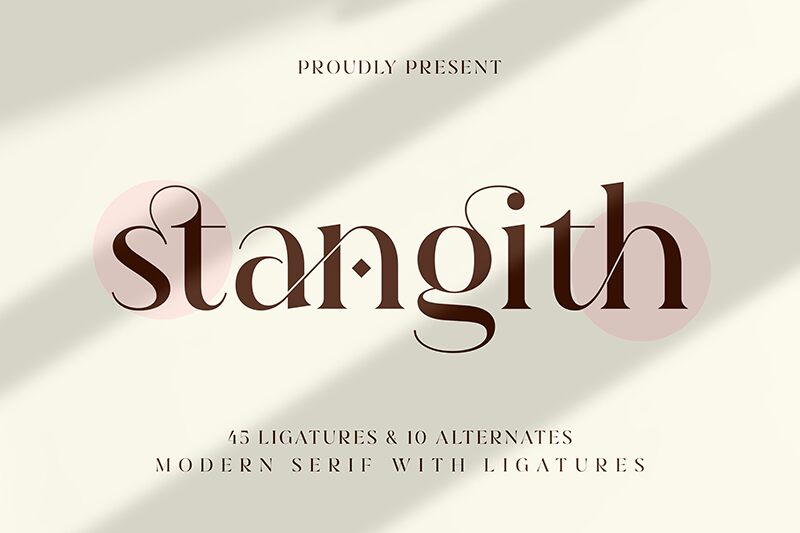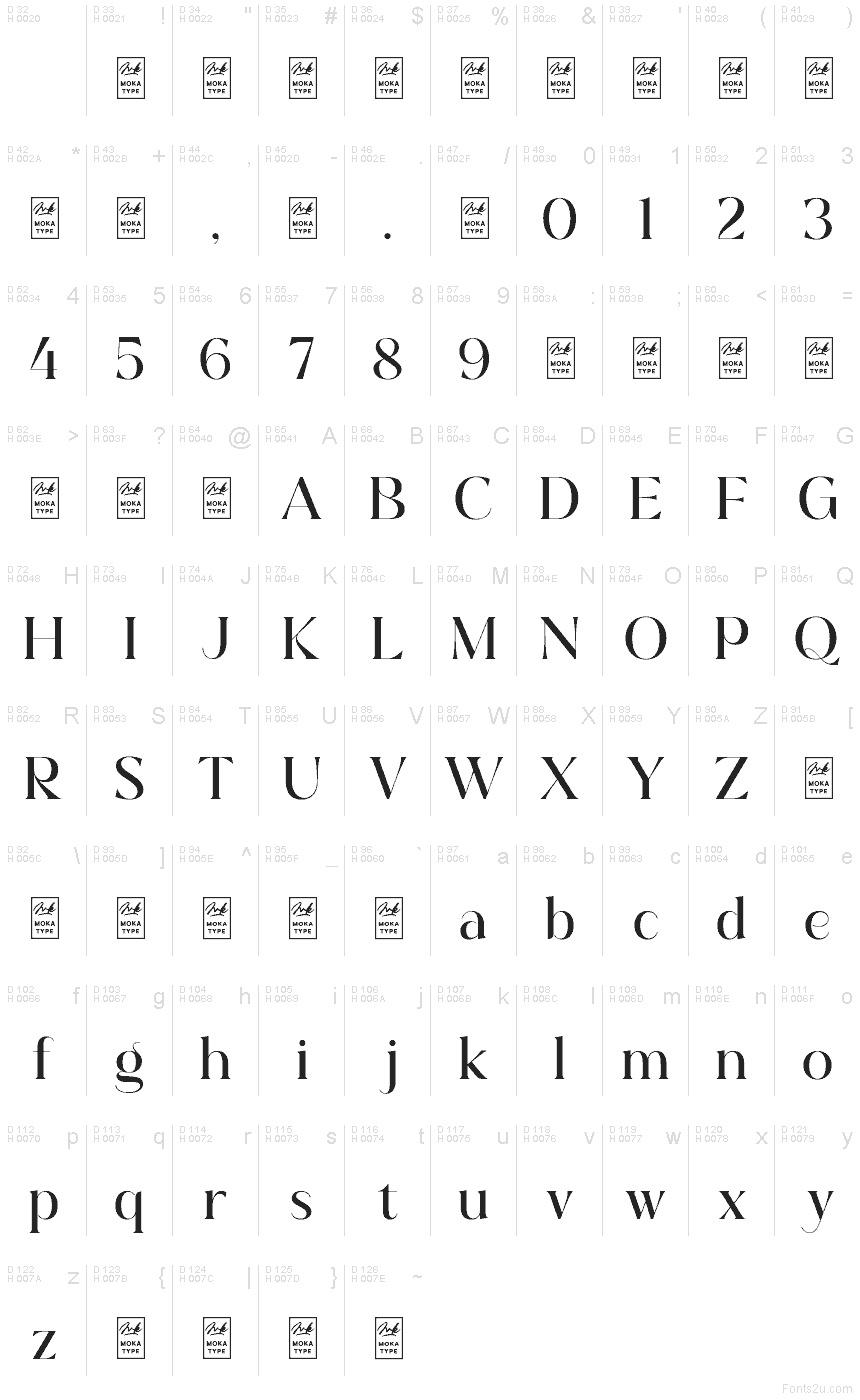
Stangith Demo
Stangith font by Moka Type Studio is a free serif typeface with a dramatic, inky elegance that feels both sharp and fluid. Slender verticals meet flared, sculpted curves, giving each word a sense of motion, like wet ink pulled by a steady hand. The letterforms feel refined yet slightly edgy, with delicate thins that add a whisper of sophistication without losing legibility at larger sizes.
Using Stangith, headlines instantly take on a luxe, editorial mood that suits fashion branding, book covers, magazine spreads, perfume packaging, gallery posters, and wedding stationery. This free font shines when you give it room to breathe, so set it large and airy, then pair it with a clean geometric sans for supporting text to keep the focus on its graceful, dramatic strokes.